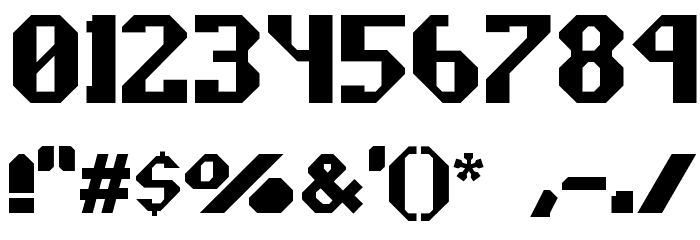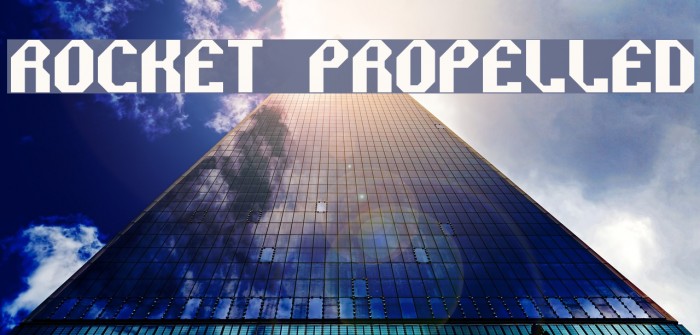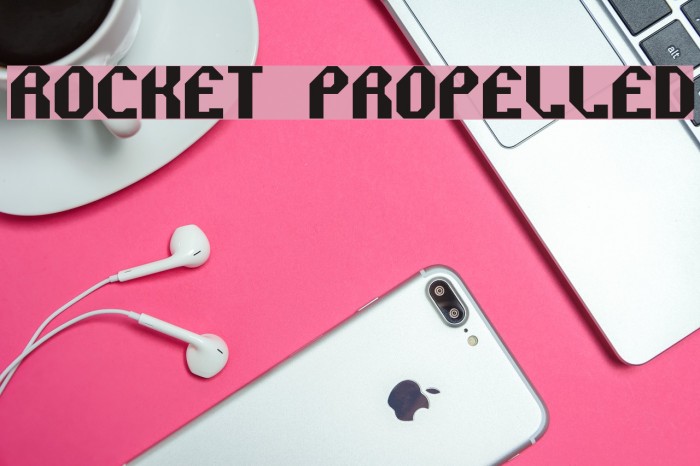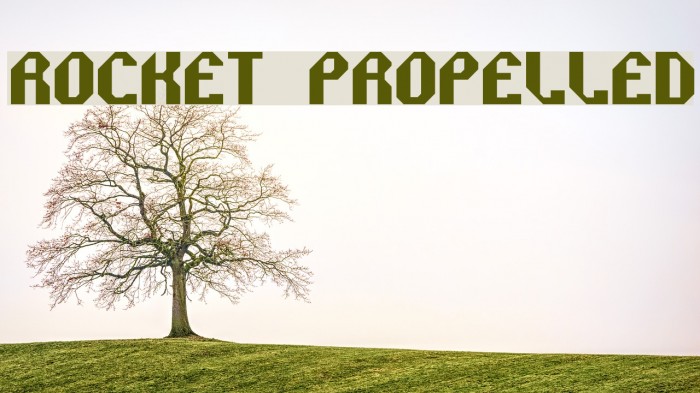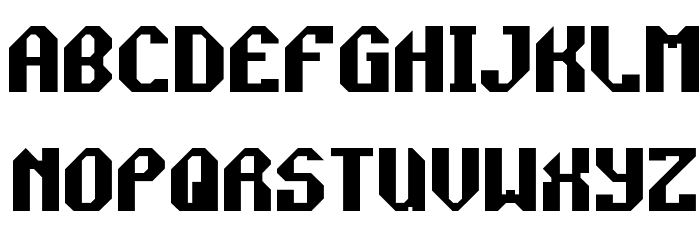
Rocket Propelled Font
Rocket Propelled Description
This font features a bold and geometric design, characterized by its angular and blocky letterforms. The uppercase and lowercase letters maintain a consistent style, with sharp edges and a futuristic appearance. The numerals and special characters follow the same design principles, ensuring uniformity across all glyphs. The font's distinct style makes it ideal for projects that require a modern and edgy look. Its strong presence and unique character shapes make it suitable for attention-grabbing headlines and titles.
| Proposed Projects | Ideal for sci-fi themed designs, video game titles, posters, and branding that requires a modern and bold aesthetic. |